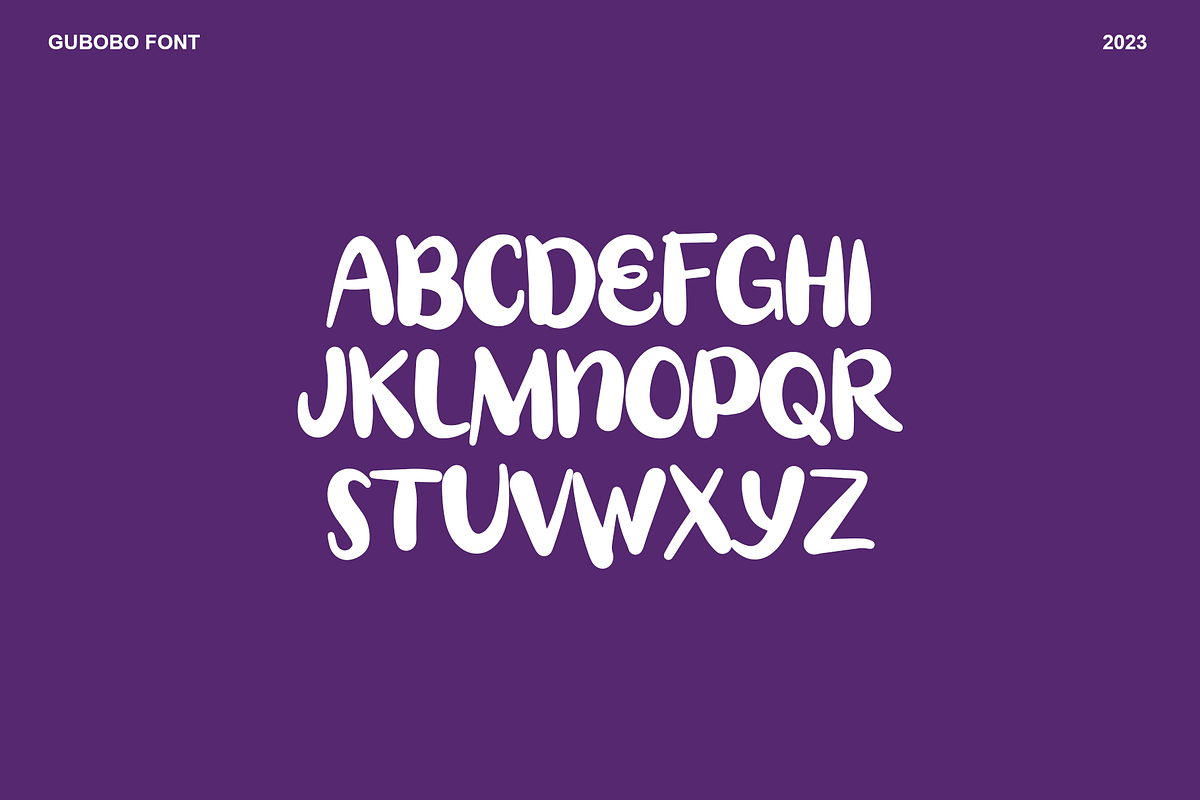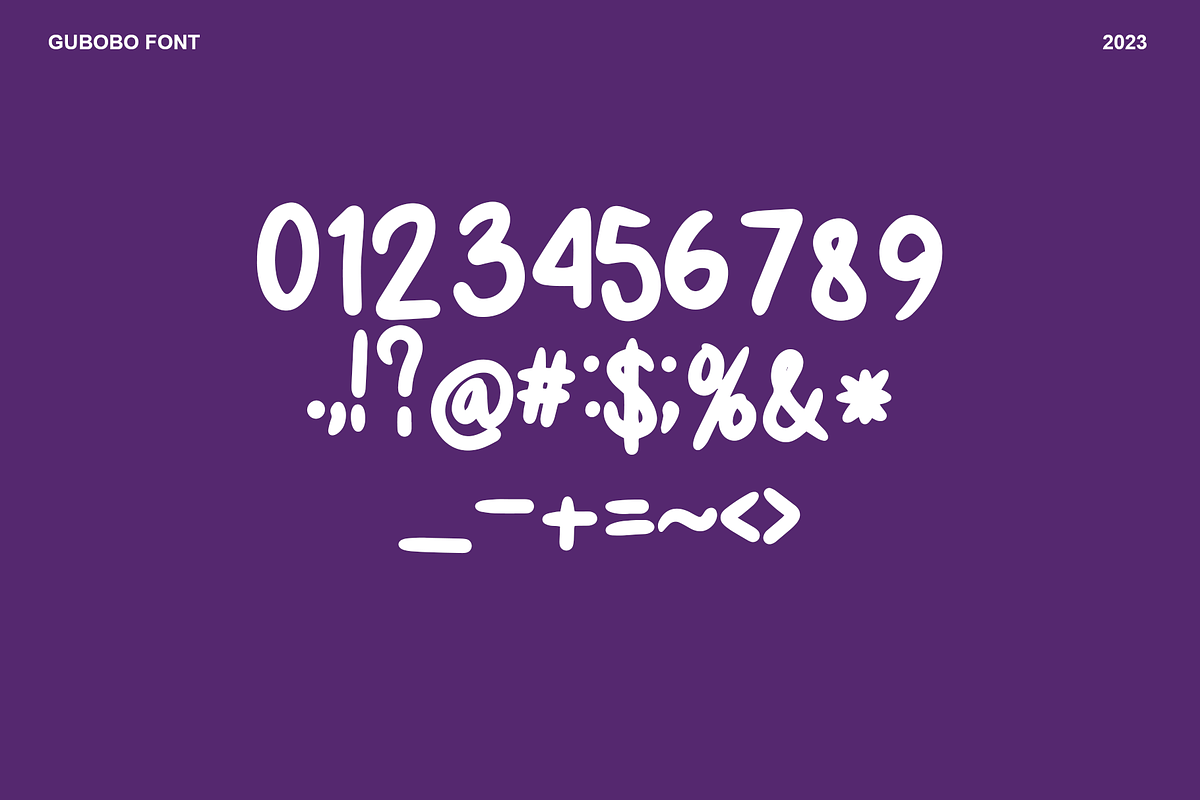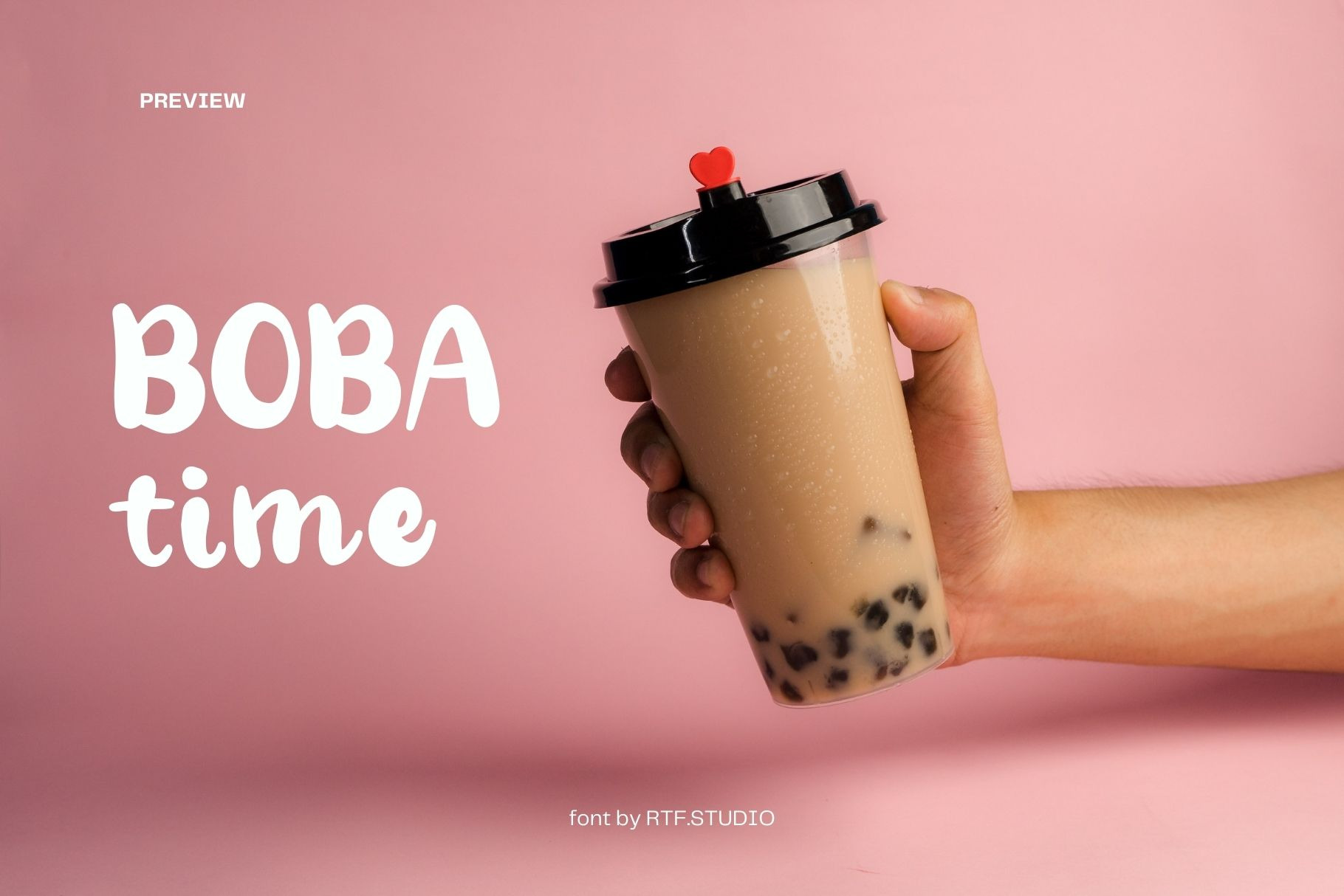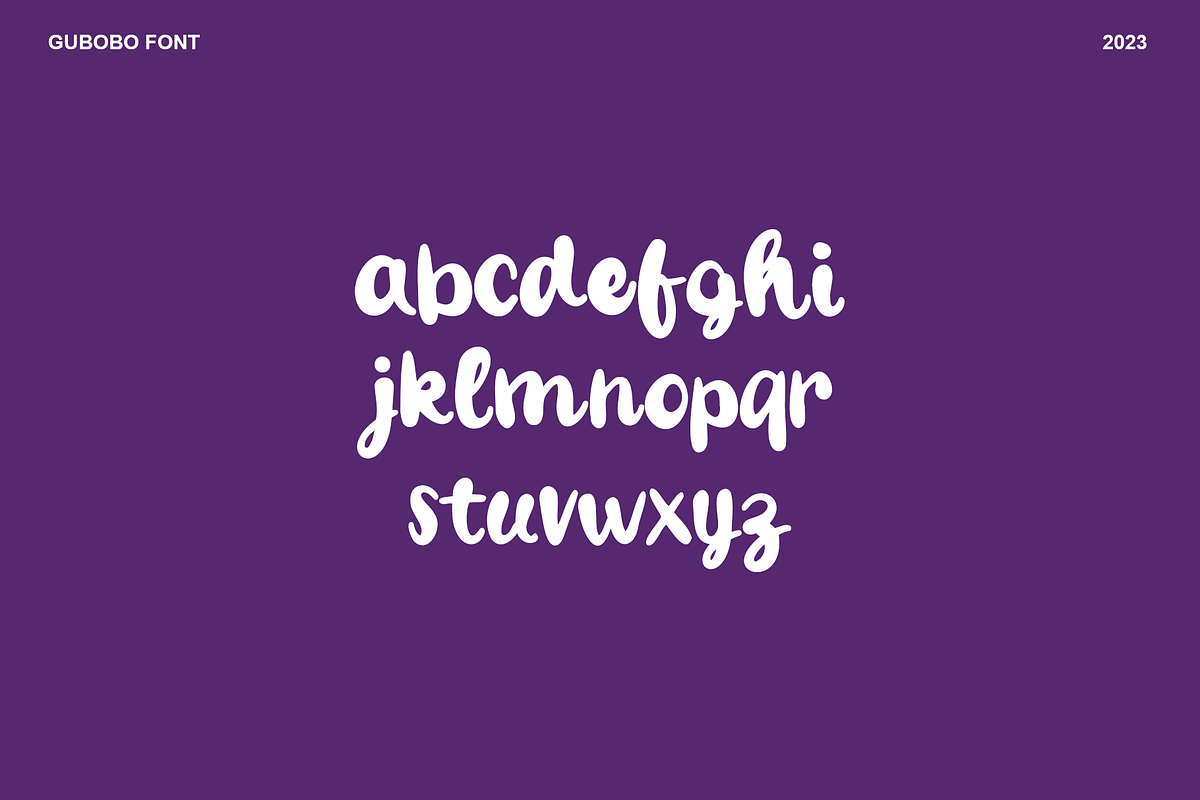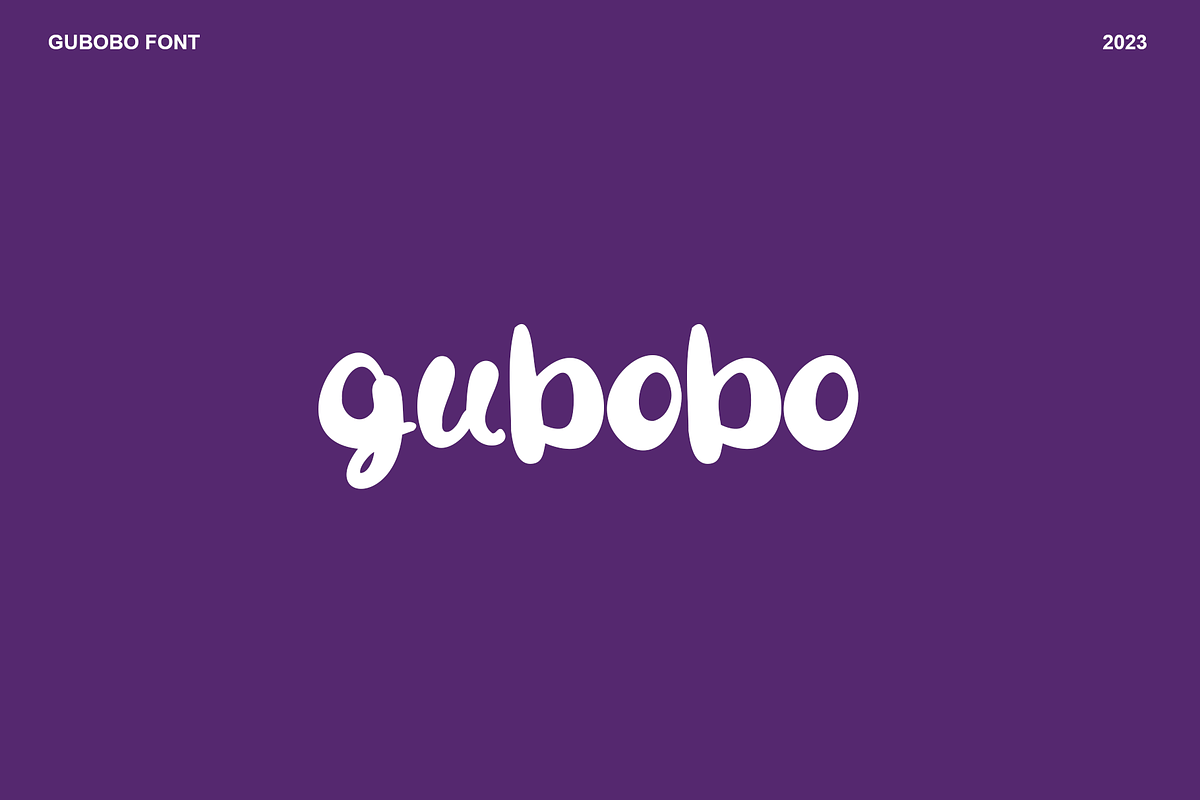
Gubobo Handwriting Brush Font
Gubobo Handwriting Brush Font type font with a fluid character and rounded in corner. Use this display font to add a special beauty and feminine touch to any design idea you can think of!
Great for use to :
- Logo,
- Sticker,
- Packaging design,
- Cricut Project,
- headlines,
- brand identity,
- t-shirt
- apparel industry,
- posters,
- magazines,
- books,
- YouTube,
- Instagram,
- websites or
- your creative design projects.